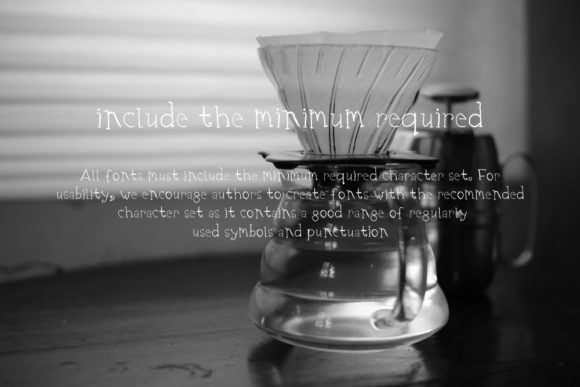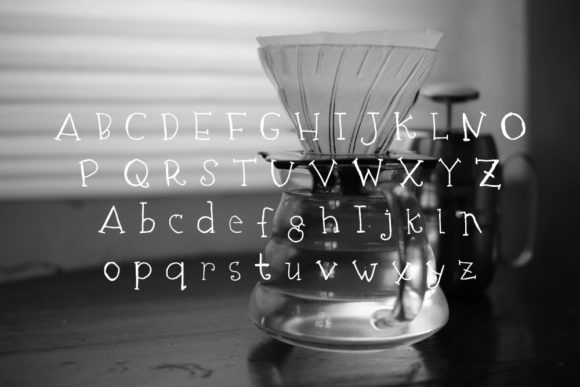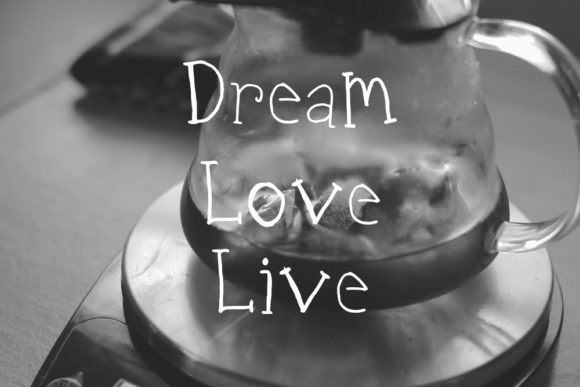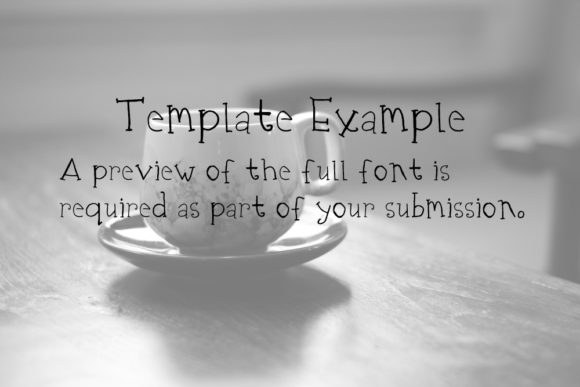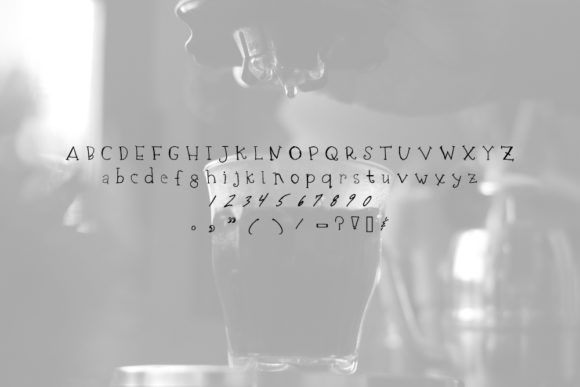
When Creativity Strikes
Have you ever been brainstorming for hours, stuck in a rut, and then suddenly – it hits you? That eureka moment when everything falls into place and your idea becomes a masterpiece? It’s those magical moments that make all the hard work worth it.
But, what makes your idea truly stand out? Enter Alvin Duo Font, a display font that embodies fun, quirkiness, and authenticity. This enchanting font is designed to take your creative idea to the next level, making it a true standout in any project.
As a designer, you know how valuable a versatile and unique font can be. Alvin Duo Font is more than just a font – it’s a tool to help you bring your vision to life. With its quirky charm and authentic feel, it’s the perfect addition to any design project, elevating your work to new heights.
Alvin Duo Font Key Features
- Unique Characteristics: Alvin Duo Font features a unique blend of modern and traditional design elements, making it an ideal choice for projects requiring a unique and sophisticated look.
Designer Review: Alvin Duo Font
The Alvin Duo font is an interesting addition to any digital design project. One thing that stands out is its versatility ✨. It’s suitable for both print and digital use, and the designer has done a great job of ensuring that it looks sharp on various screen sizes. The font is also highly customizable, making it easy to adjust the style to fit your project’s needs.
Another positive aspect of the Alvin Duo font is its high legibility ✨. The letterforms are clear and easy to read, even at smaller font sizes. This makes it an excellent choice for body text or headlines in publications.
- ⚠️ The font may not be suitable for fine typography, as some letterforms can appear a bit bland.
- ⚠️ The font’s bold weights may not be as bold as some users might expect.
- ⚠️ Some users may find the font’s x-height a bit too small.
Overall, the Alvin Duo font is a solid choice for any design project. While it may not be perfect, its versatility and high legibility make it a great option for designers looking for a clean and professional font. With a bit of tweaking, it can be a great addition to your design arsenal.
Tips for Getting the Most Out of Alvin Duo Font
For best results, use Alvin Duo Font in conjunction with bold or italic text to create contrast and visual interest.
Experiment with different font sizes and styles to create a unique and eye-catching design.
Alvin Duo Font is ideal for use in logos, branding materials, and marketing collateral.
It can also be used in digital design, such as website headers and social media graphics.